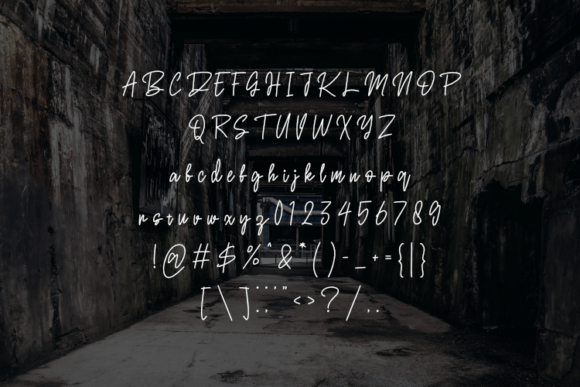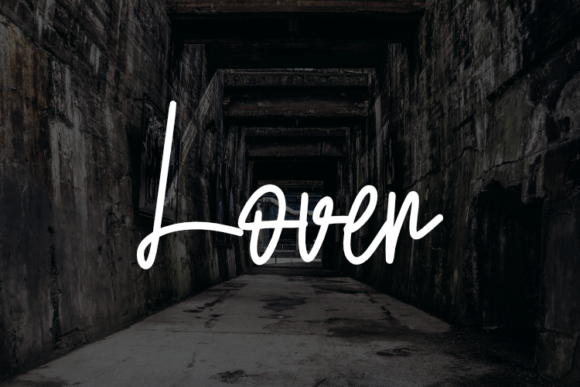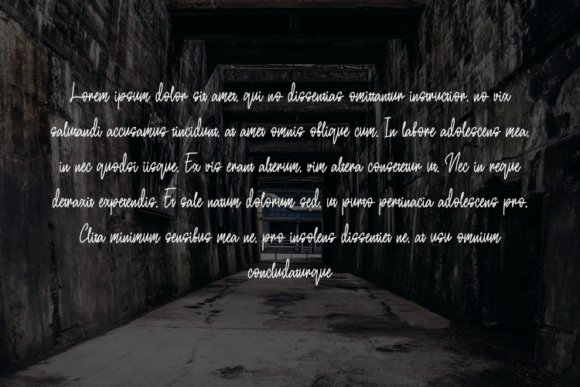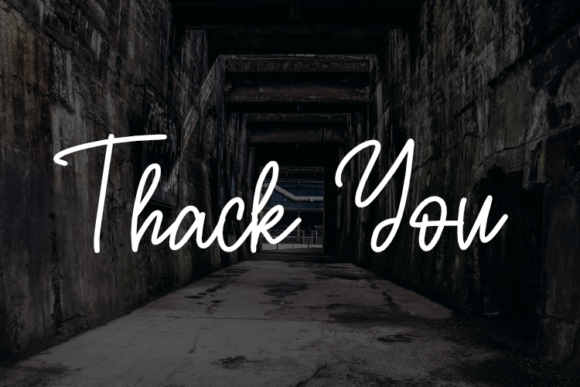
Unlocking Creative Possibilities with Azizah Erina Font
I’ll never forget the moment I stumbled upon Azizah Erina font while working on a project for a fashion brand. I was struggling to find the perfect font that could elevate their t-shirt designs from basic to boutique-worthy. The client wanted something elegant, yet modern; classic, yet versatile. After hours of scouring through font libraries, I finally found Azizah Erina, and it was love at first sight! 💕
An Honest Review of Azizah Erina Font
- ✨ Elegant and refined aesthetic that’s perfect for high-end designs
- ✅ Versatile and adaptable to various design styles and software applications
- 🔥 Unique blend of classic charm and modern simplicity that adds a touch of sophistication to any design
- 🎨 Extensive range of OpenType features, glyphs, and stylistic alternates that offer endless creative possibilities
While Azizah Erina font is an excellent addition to any design toolbox, there are a few minor quirks to be aware of:
- ⚠️ Some users may find the font’s elegance and refinement too subtle for certain design projects
- 🤔 Limited availability of bold or heavy weights, which may not be suitable for designs that require a stronger font presence
The Backstory Behind Azizah Erina Font
Azizah Erina font was inspired by the designer’s love for classic typography and modern simplicity. Growing up in a culturally rich environment, the designer was fascinated by the beauty of traditional typography and the endless possibilities of modern design. With Azizah Erina, the designer aimed to create a font that would embody the perfect blend of elegance and versatility.
Q: What makes Azizah Erina font unique?
A: Azizah Erina font is unique due to its blend of classic charm and modern simplicity, making it perfect for designs that require elegance and sophistication.
Q: Is Azizah Erina font suitable for digital designs?
A: Yes, Azizah Erina font is optimized for digital designs and can be used for a wide range of applications, from social media graphics to website typography.